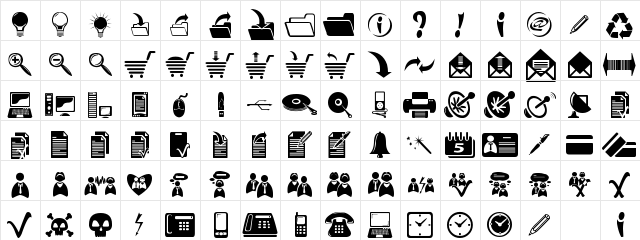
GADing3 Regular
| Designer | GA Soft |
Design Context for GADing3 Typeface
GADing3 is a composed and adaptable typeface that performs quietly and consistently across a wide range of design contexts.